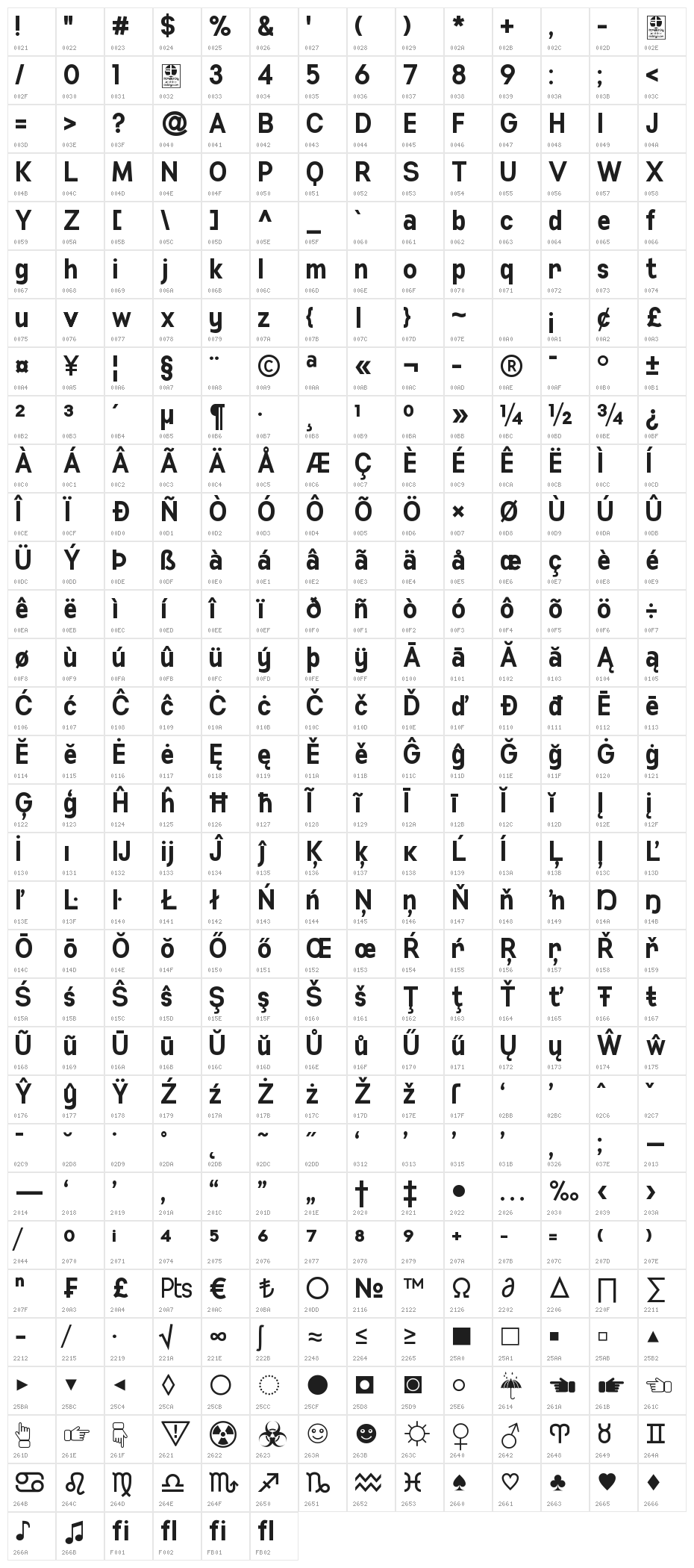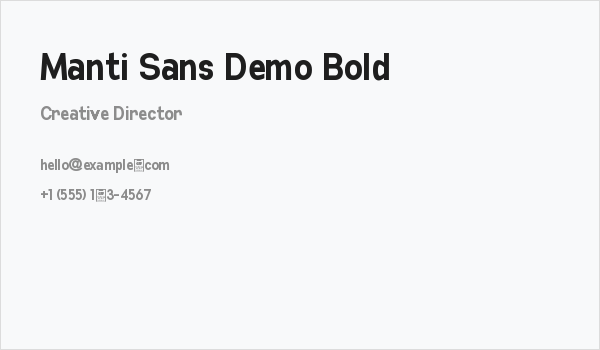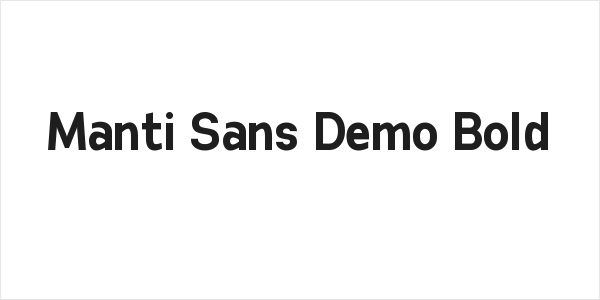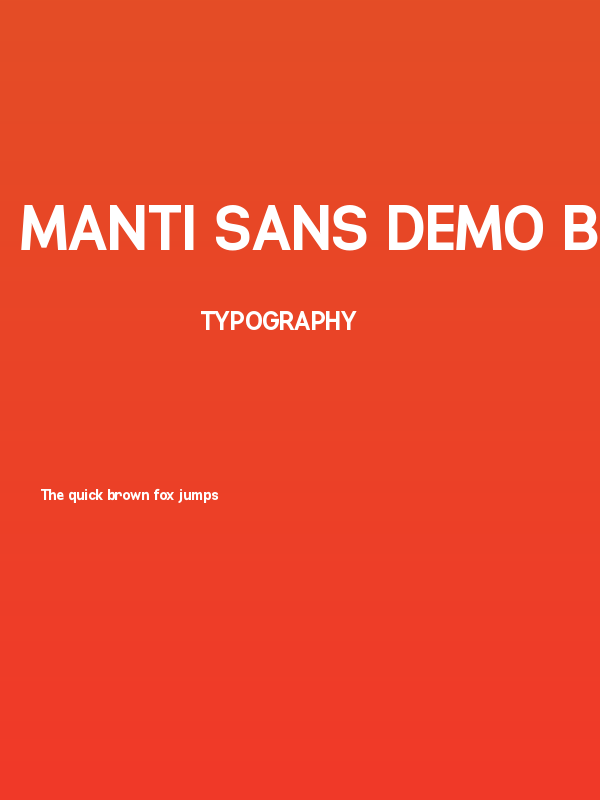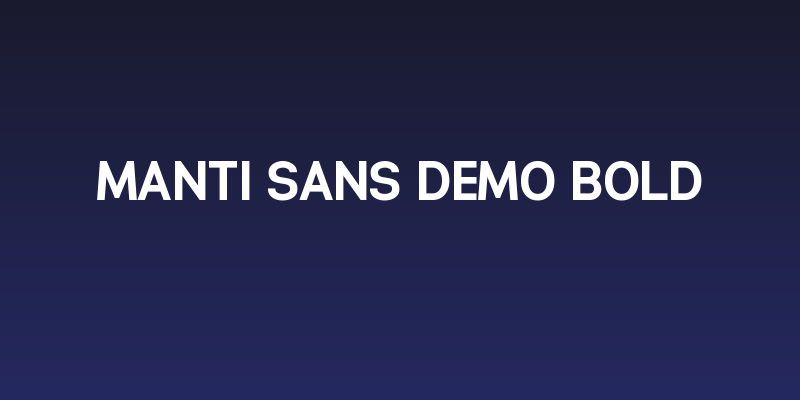
Manti Sans Demo Bold Font
Manti Sans Demo Bold Description
This font features a bold and modern sans-serif style, characterized by clean lines and a strong presence. The uppercase and lowercase letters maintain a consistent weight, providing a uniform appearance. The numerals are clear and easily distinguishable, making them suitable for various applications. Special characters are well-defined, enhancing the font's versatility. The overall design is straightforward, with a focus on readability and impact, making it ideal for attention-grabbing headlines and branding.
| Proposed Projects | Ideal for branding, advertising, headlines, and digital media where a bold statement is needed. |